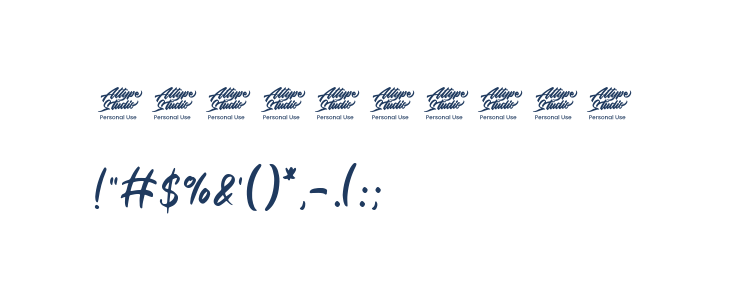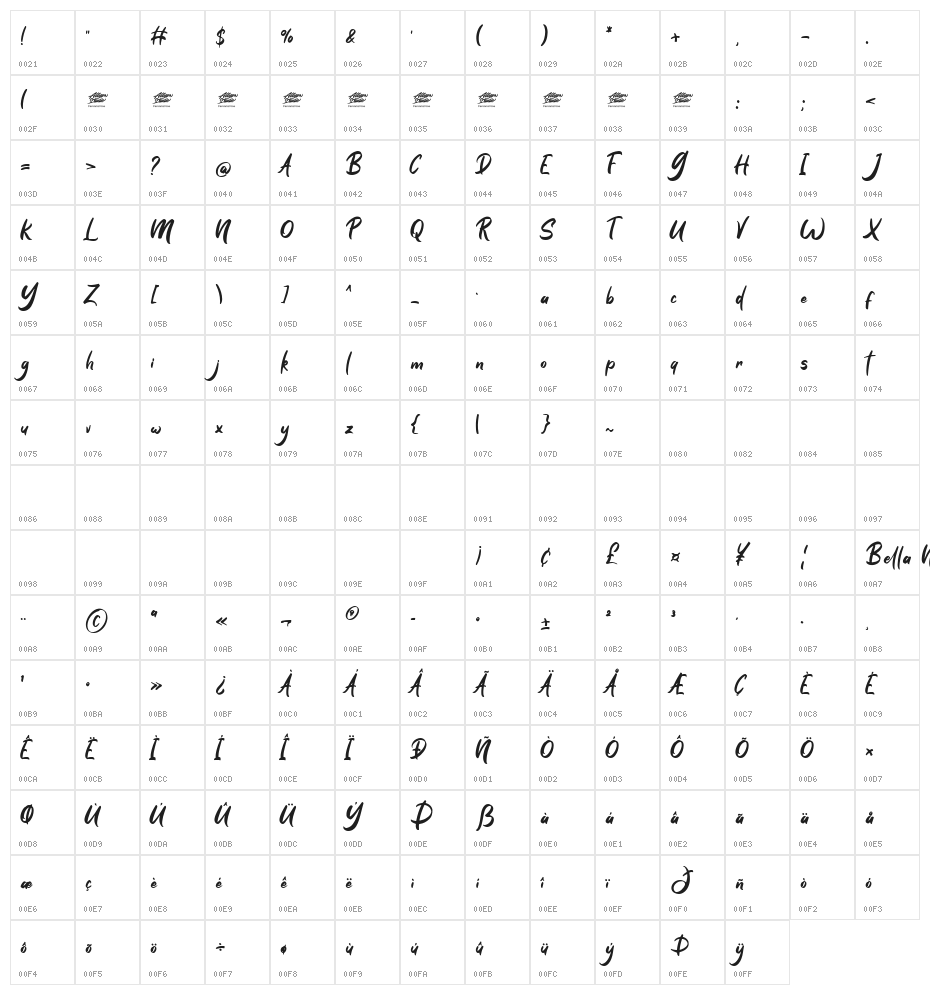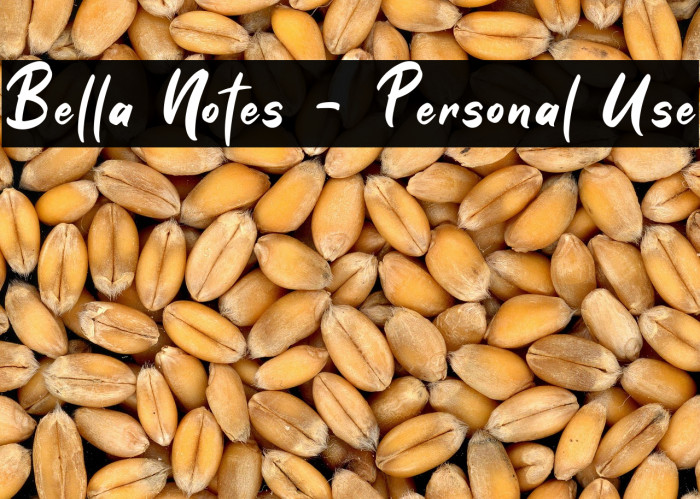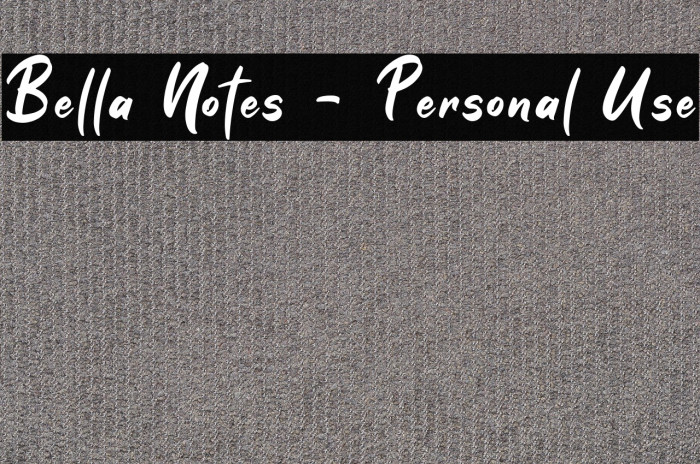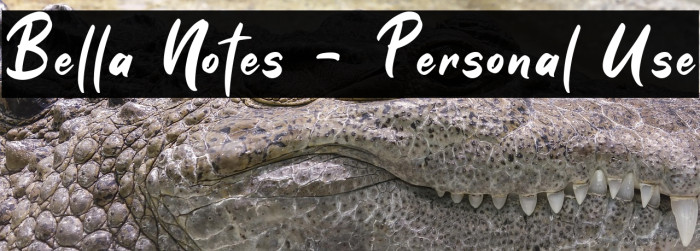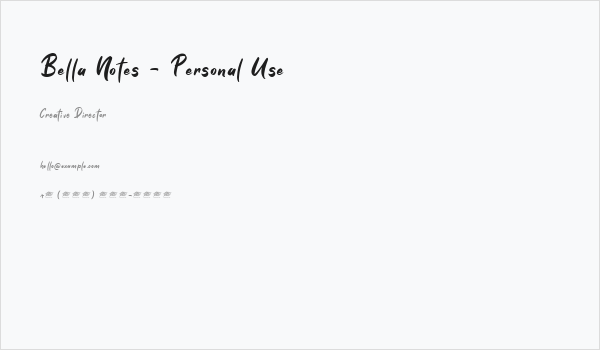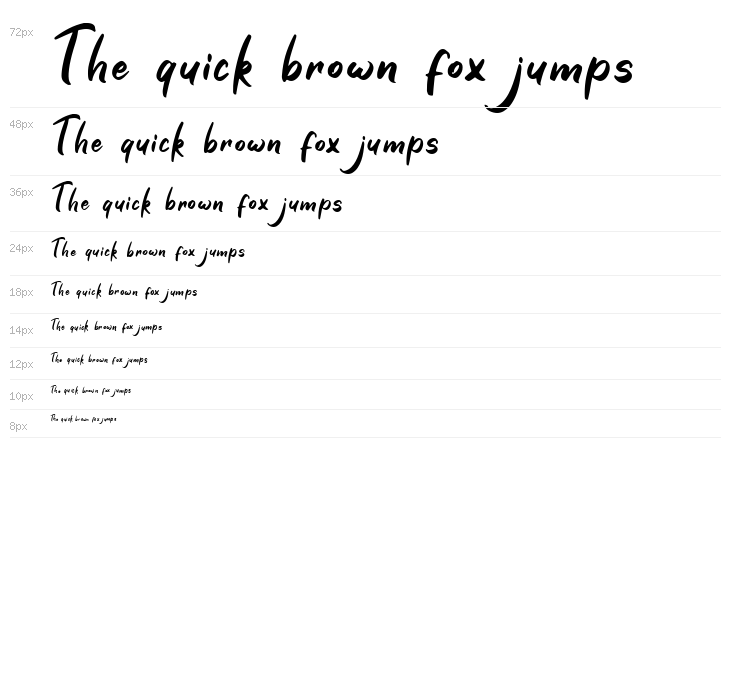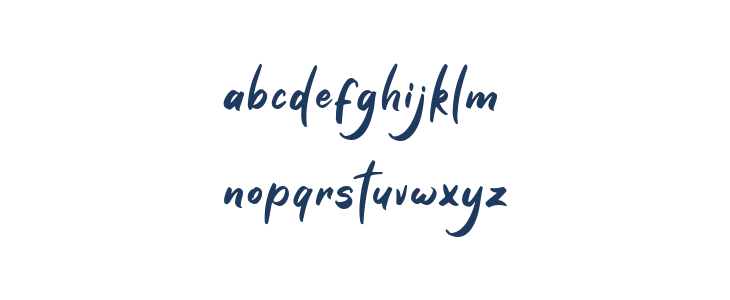
Bella Notes - Personal Use Font
Bella Notes - Personal Use Description
This font features a dynamic and expressive handwritten style, characterized by its fluid strokes and playful curves. The uppercase letters are bold and slightly slanted, giving a sense of movement and energy. The lowercase letters maintain a consistent flow, with some characters extending below the baseline, adding to its casual and artistic feel. The numerals and special characters are designed to match the overall aesthetic, ensuring a cohesive look across all text. This font is perfect for projects that require a personal touch, such as invitations, greeting cards, and creative branding.
| Use Case | Logos, Headlines, Invitations |
| Proposed Projects | Ideal for invitations, greeting cards, creative branding, and personal projects. |